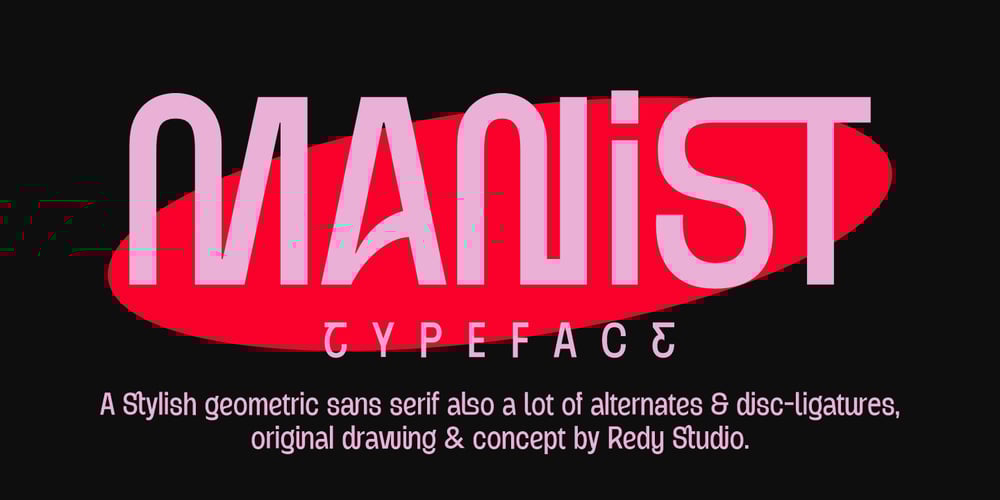
Manist
Manist font
Manist Font Family was designed by Nurul Fajri Redy and published by Redy Studio. Manist contains 2 styles and family package options. Discover Manist, a seamless fusion of geometric sans-serif and striking display font elements. Carefully designed with precision and innovation, it offers versatility and readability. The typeface features numerous alternative characters and special ligatures, enhancing its casual appeal.Thank you for checking out Manist! I hope you find it enjoyable, and feel free to give it a try below!If you have any questions or if you need information about custom licenses, please don’t hesitate to reach out at nfajriredy@gmail.comBest regards, Redy